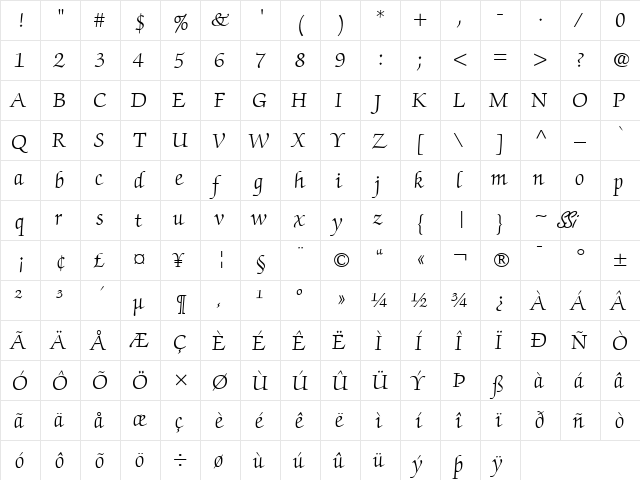
Chancery Script Light SSi Light
Design Context for Chancery Script Light SSi Typeface
Chancery Script Light SSi brings a calligraphic fluidity to the page — its connecting strokes and expressive curves give it an unmistakably human quality. The delicate stroke weight brings airiness and refinement to layouts.
Font Pairing: Combine Chancery Script Light SSi with a simple geometric sans for maximum contrast — the tension between flowing curves and clean structure is a classic typographic pairing.
Pro Tip: Use Chancery Script Light SSi for short runs of text — names, titles, or taglines. Extended body copy in script faces tires the eye quickly.